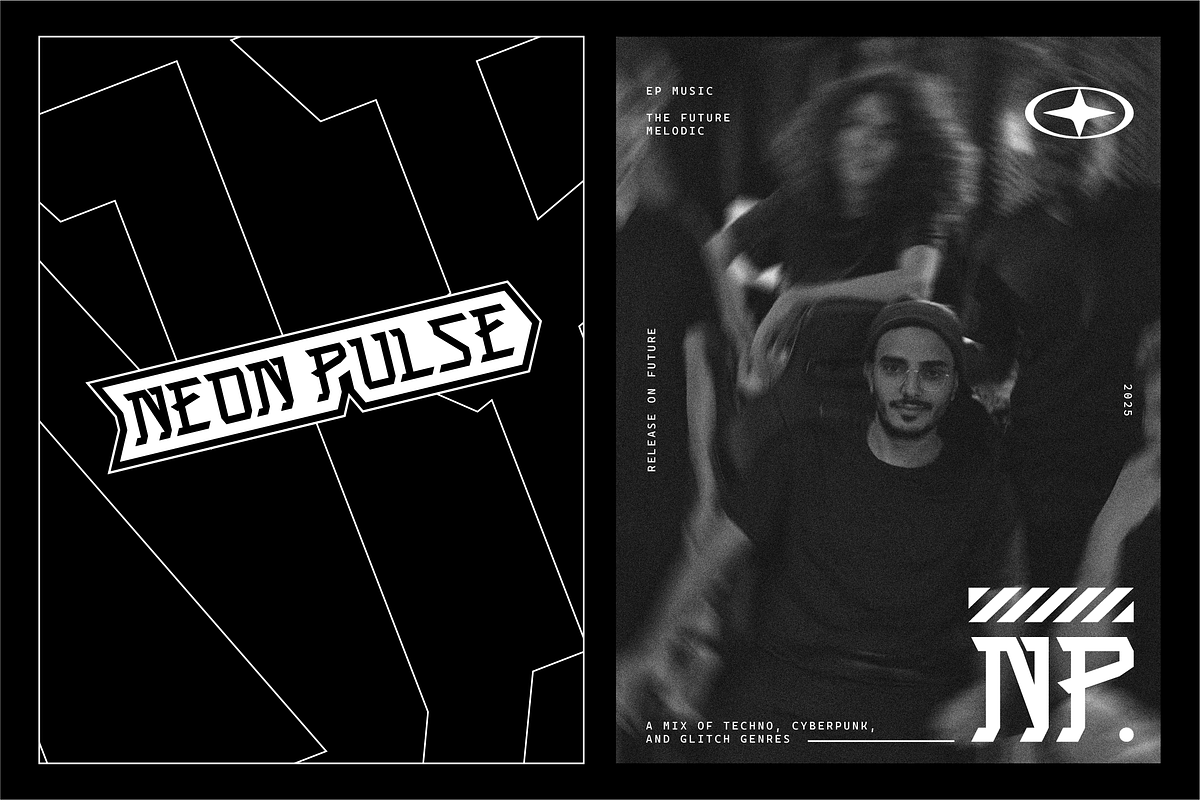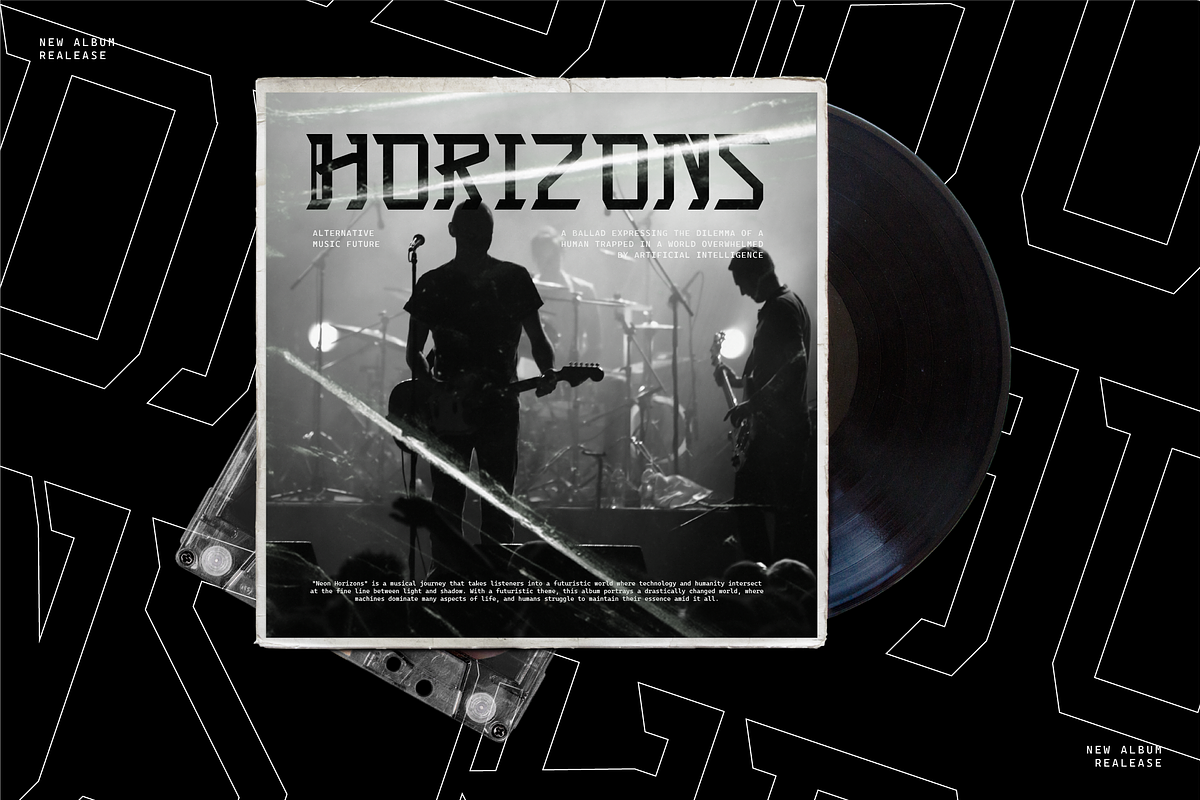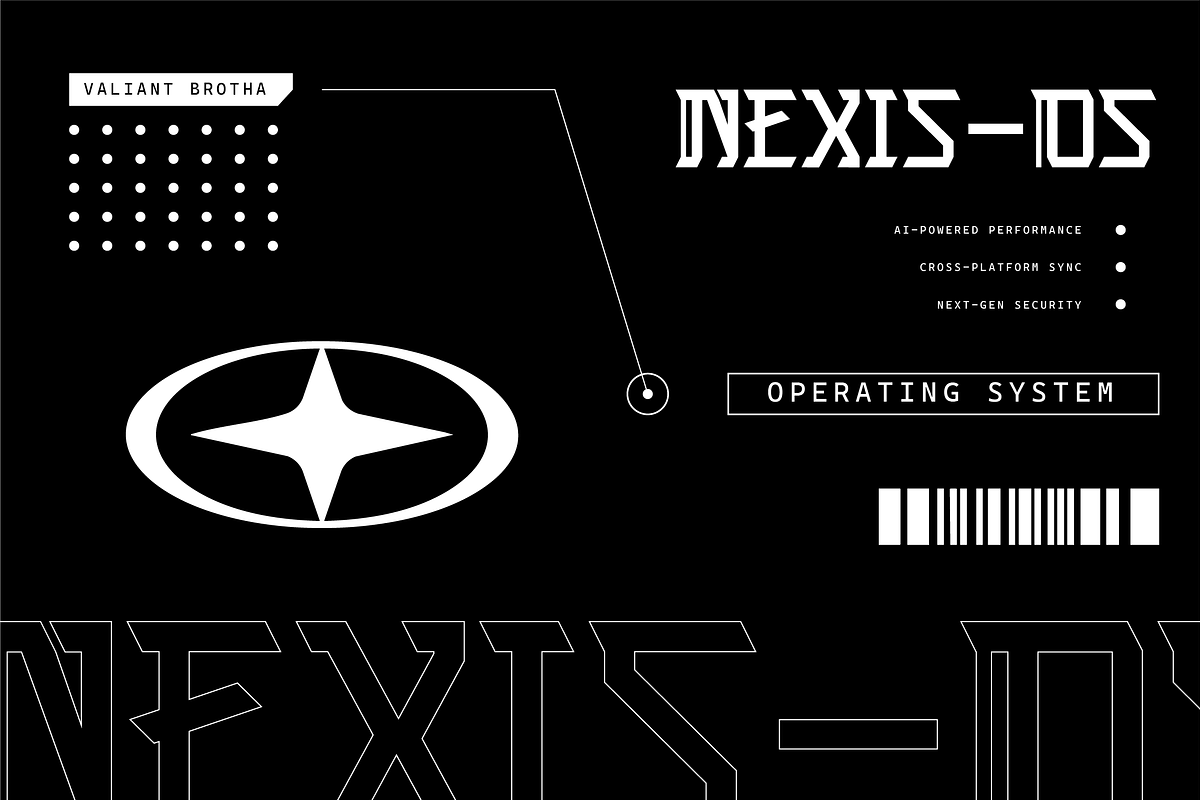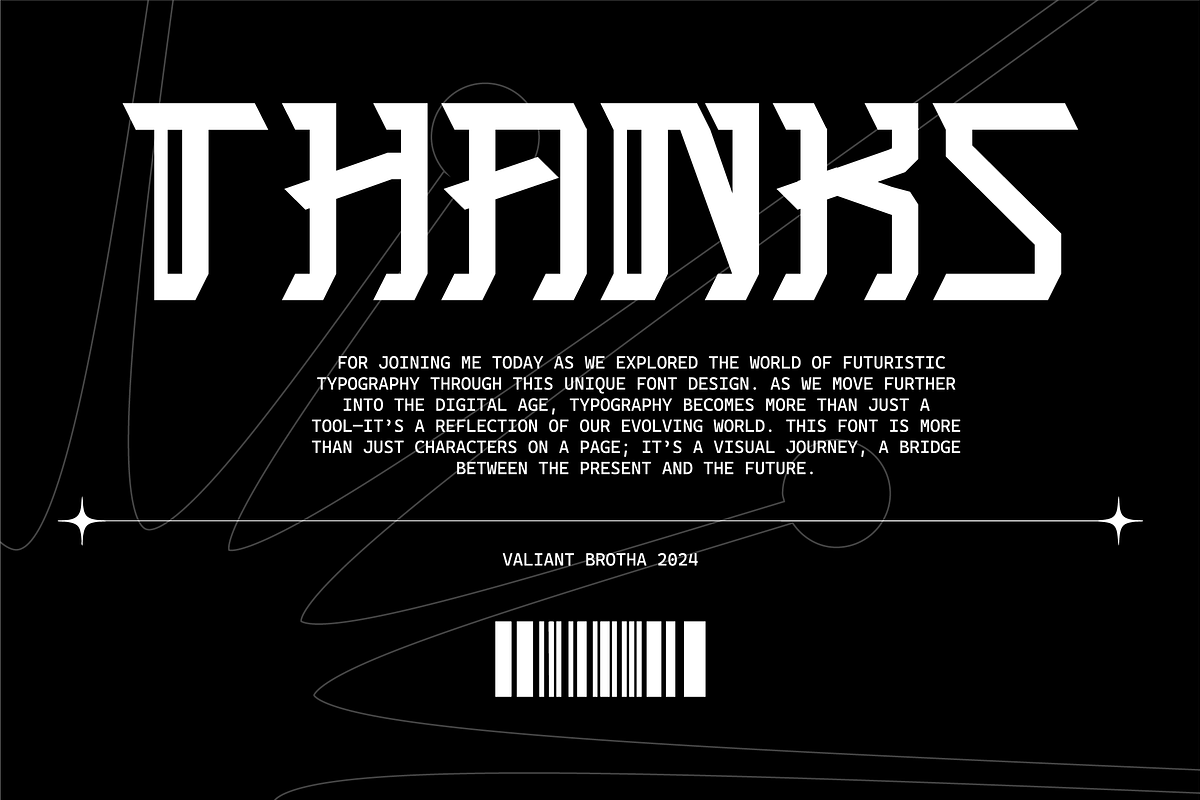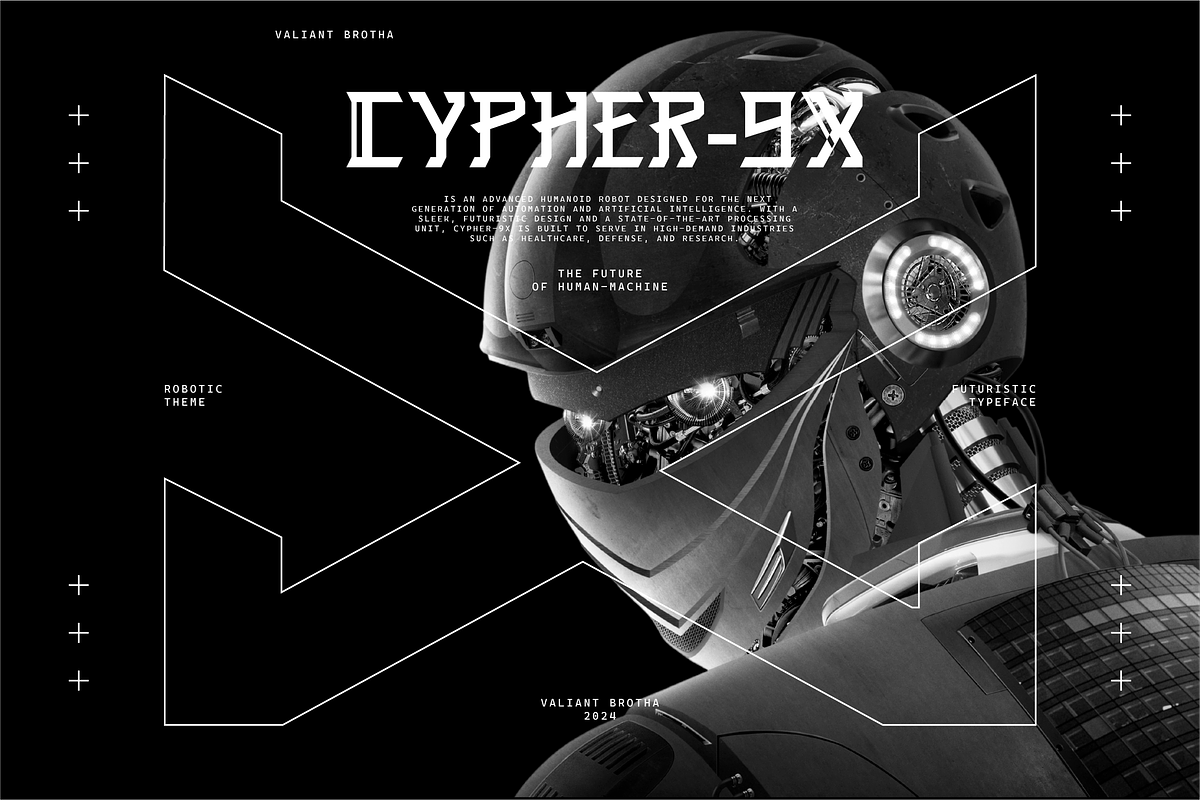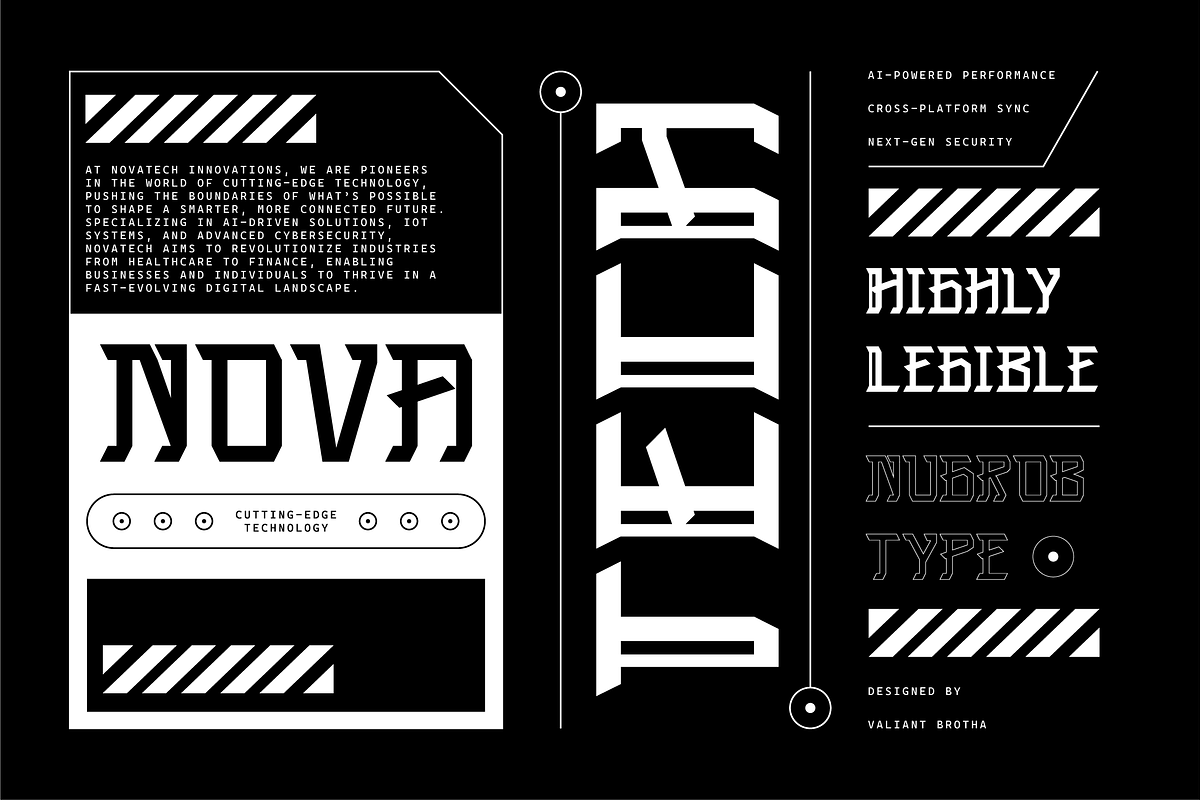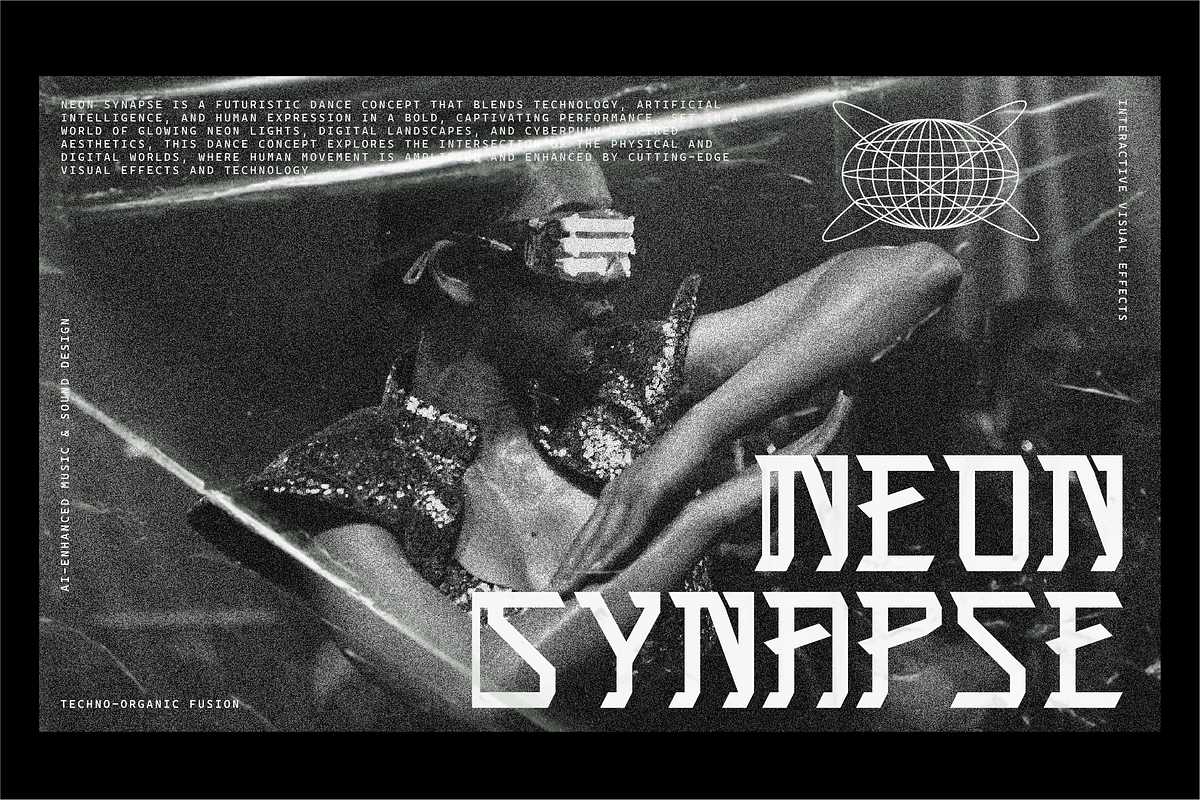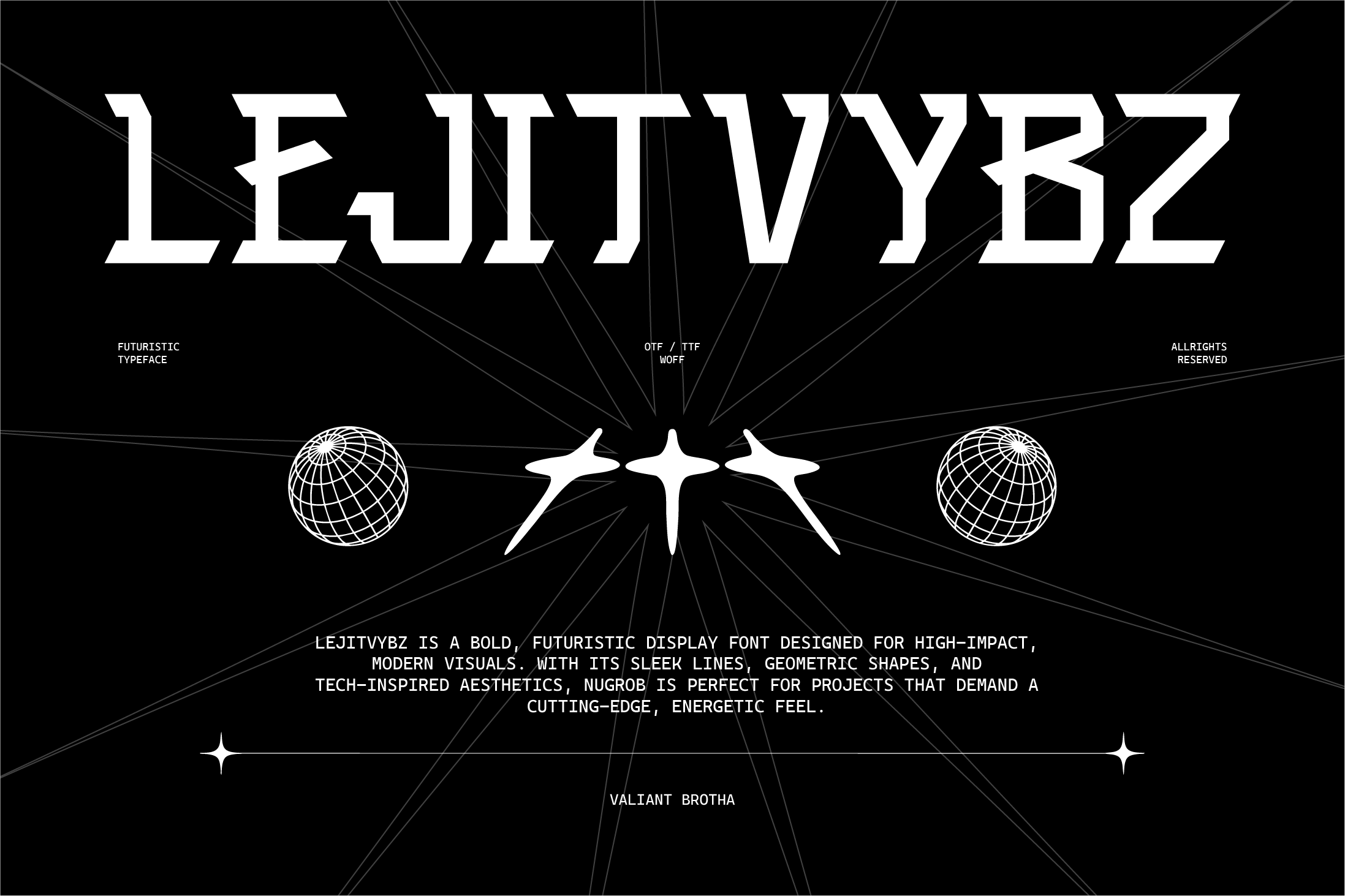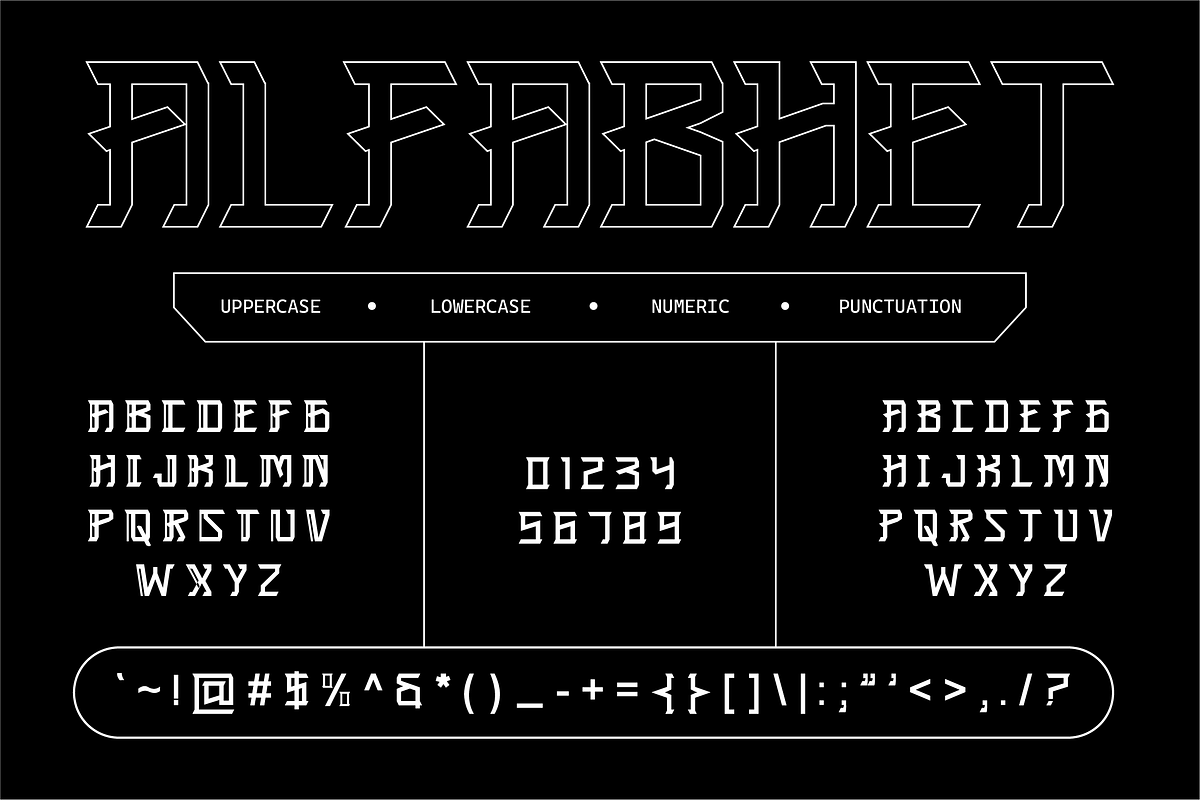
VB LejitVybz - Futuristic Font
Lejitvybz is a bold, futuristic display font designed for high-impact, modern visuals. With its sleek lines, geometric shapes, and tech-inspired aesthetics.